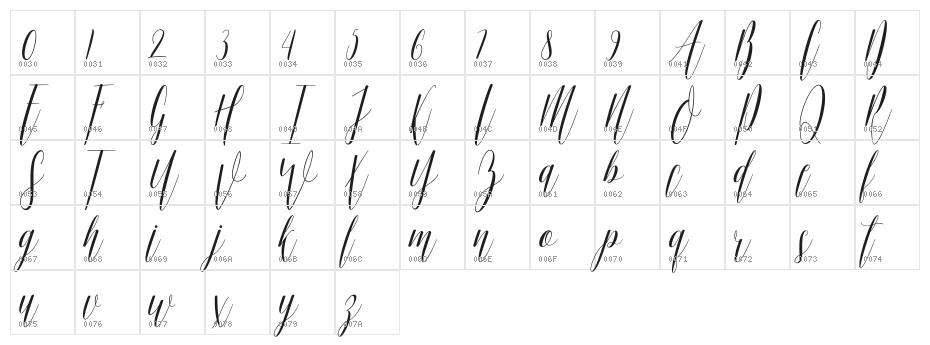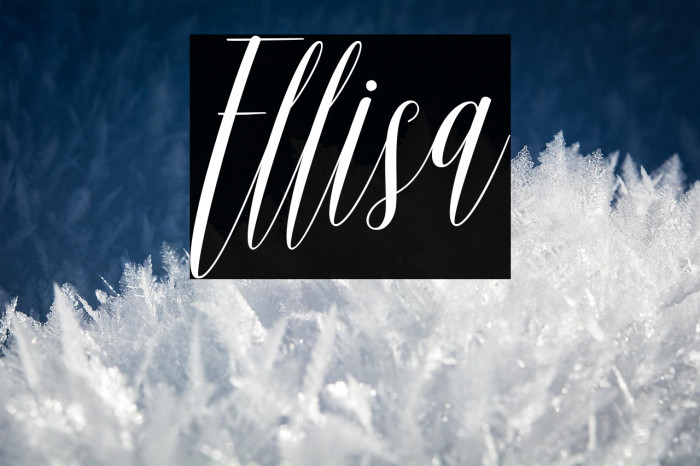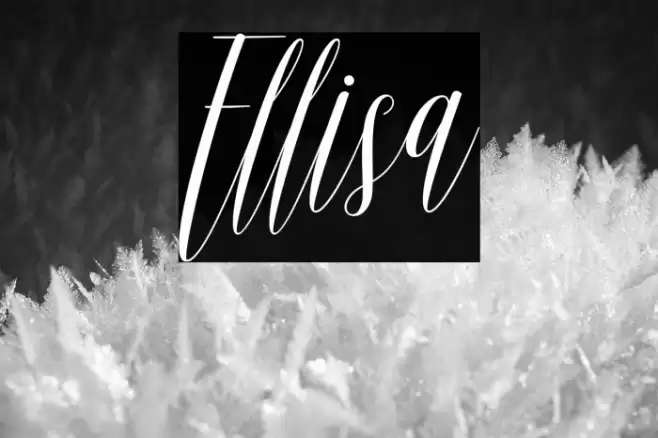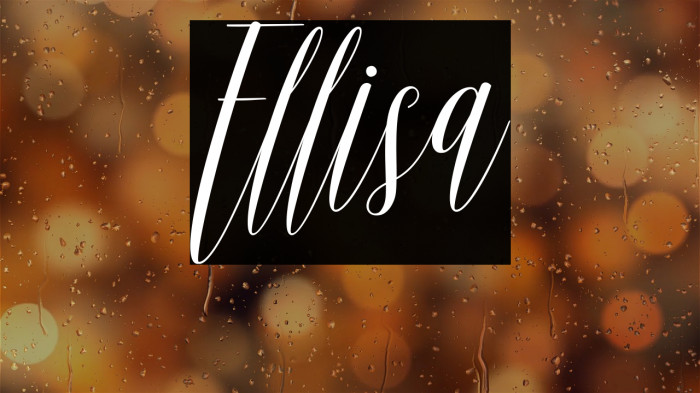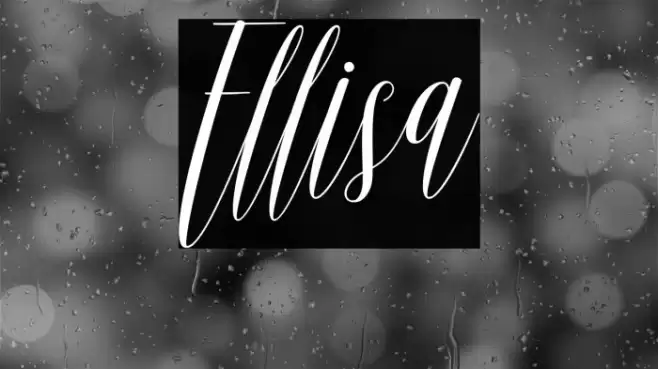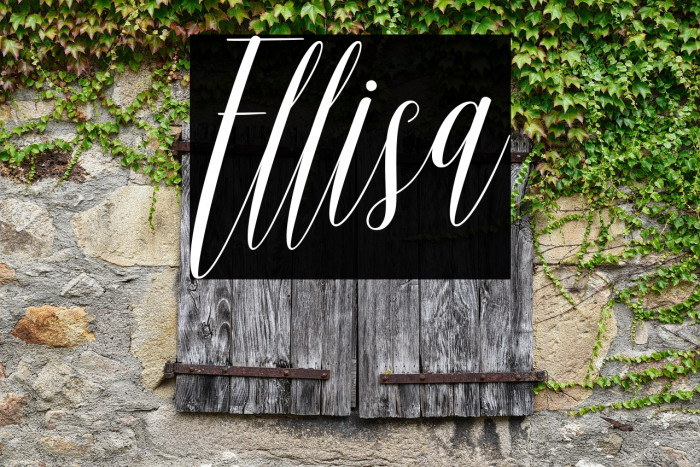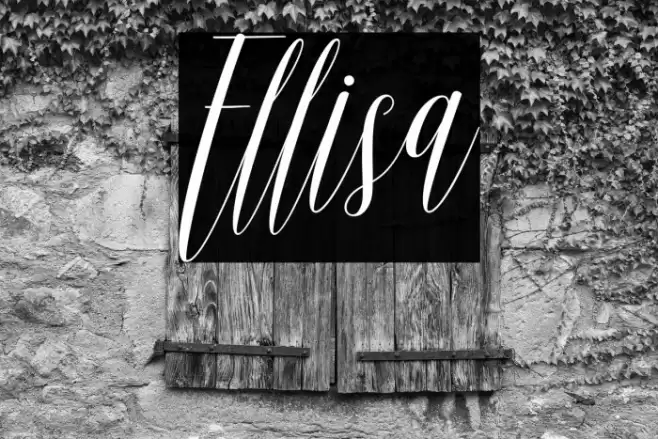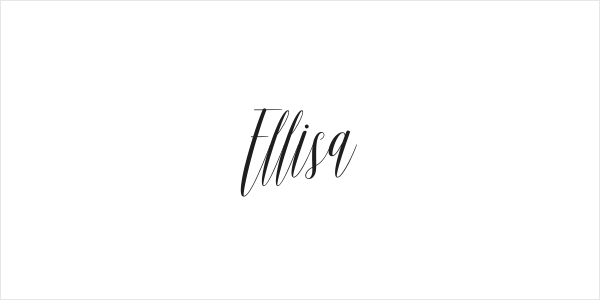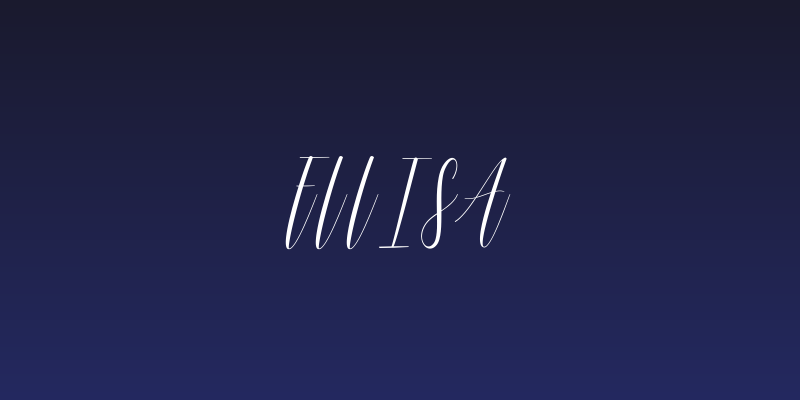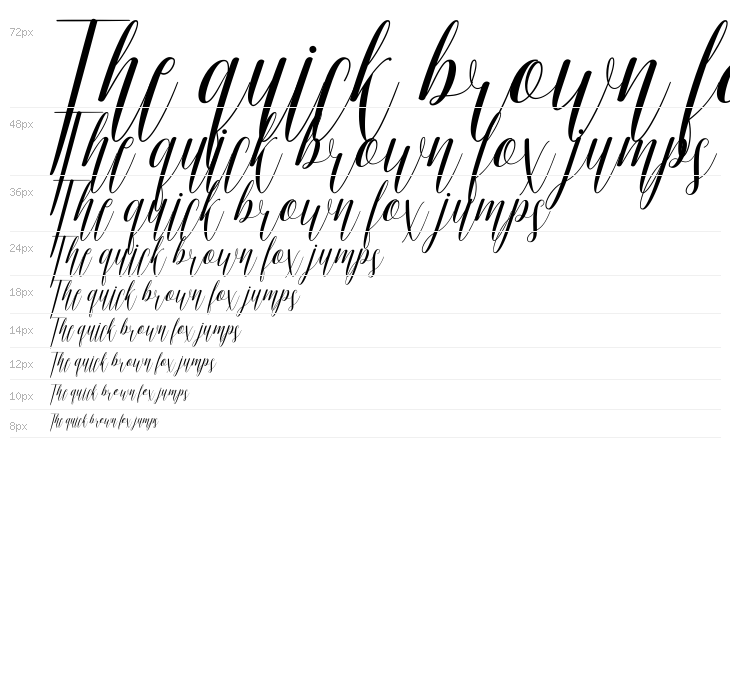
Ellisa Font
Ellisa Description
This elegant script font features a flowing, cursive style with elongated, graceful strokes. The uppercase letters are tall and slender, with a sophisticated flair that adds a touch of elegance to any design. The lowercase letters maintain a consistent flow, connecting seamlessly to create a harmonious look. The numerals are distinct yet maintain the same fluidity, making them suitable for various applications. The special characters are designed with the same attention to detail, ensuring they blend well with the rest of the font. Overall, this font exudes a sense of refinement and sophistication, perfect for projects that require a touch of class.
| Use Case | Logos, Invitations, Headlines |
| Proposed Projects | Wedding invitations, luxury branding, elegant stationery, and high-end product packaging. |